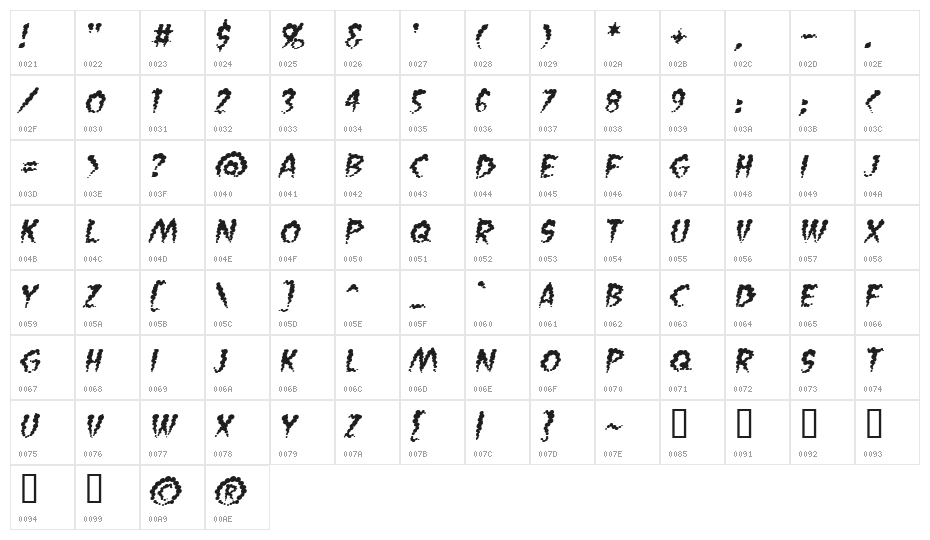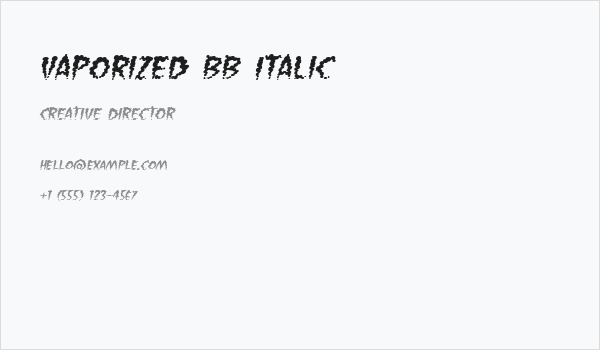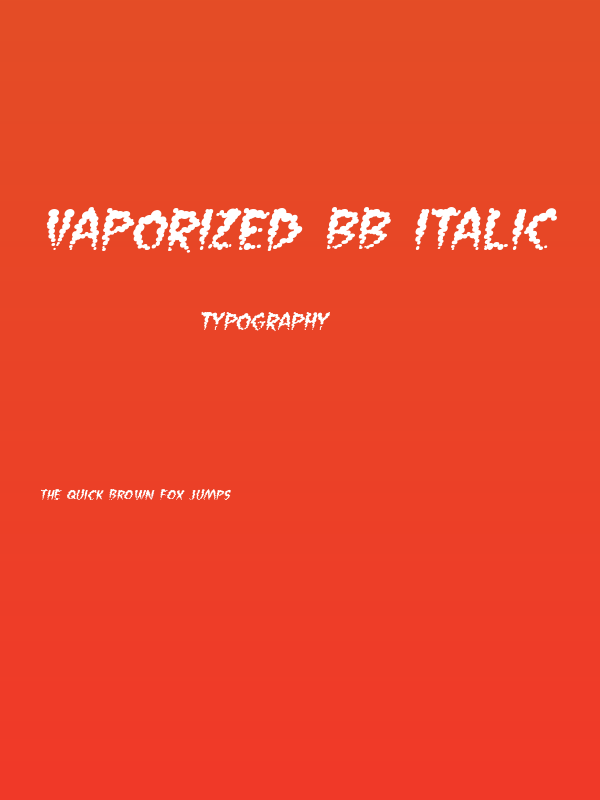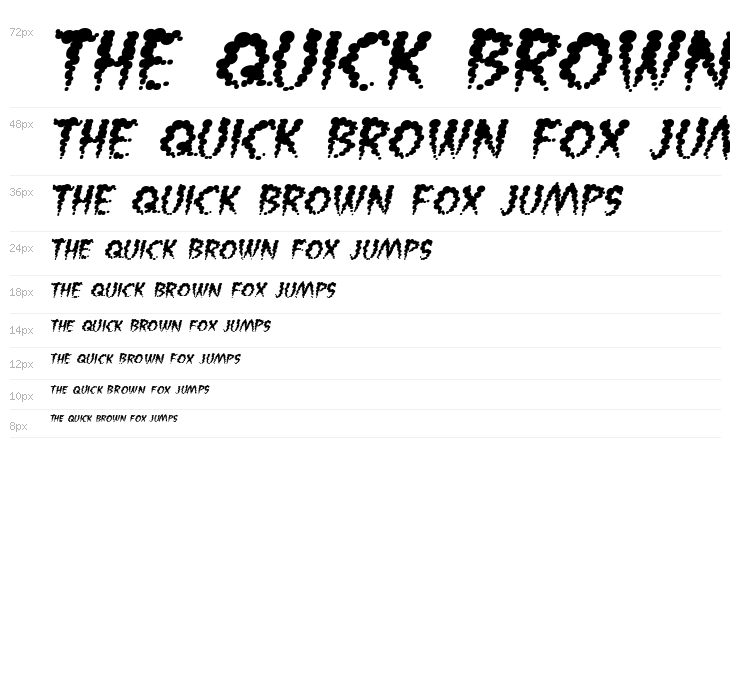
Vaporized BB Italic Font
Vaporized BB Italic Description
This font features a unique, dotted design that gives each character a vaporized appearance. The letters are composed of varying sizes of dots, creating a dynamic and textured look. The style is italicized, adding a sense of movement and fluidity to the text. The uppercase and lowercase letters maintain a consistent style, with rounded edges and a playful, informal feel. Numbers and special characters are also included, following the same dotted pattern. This font is eye-catching and distinct, making it suitable for creative and artistic projects.
| Proposed Projects | Ideal for posters, album covers, digital art, and creative branding. |